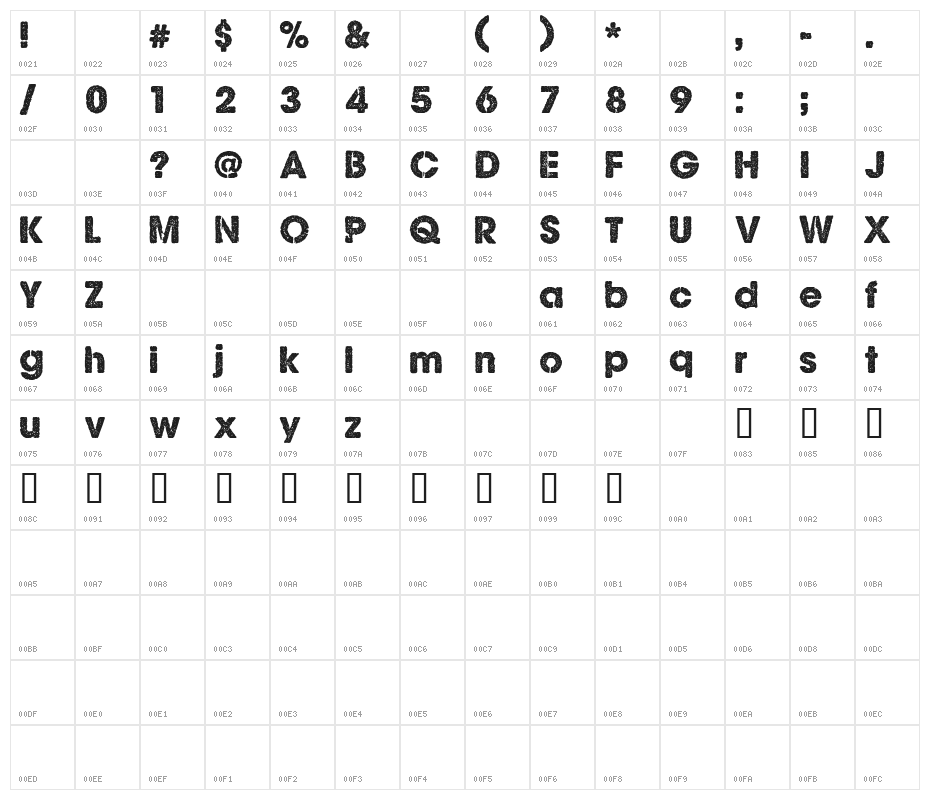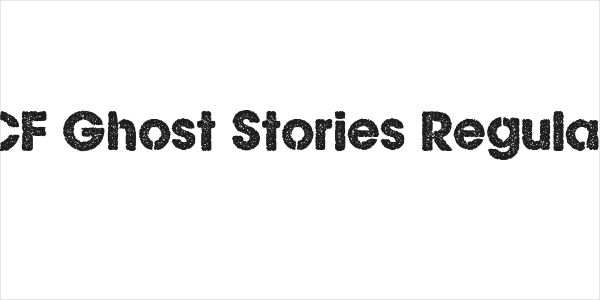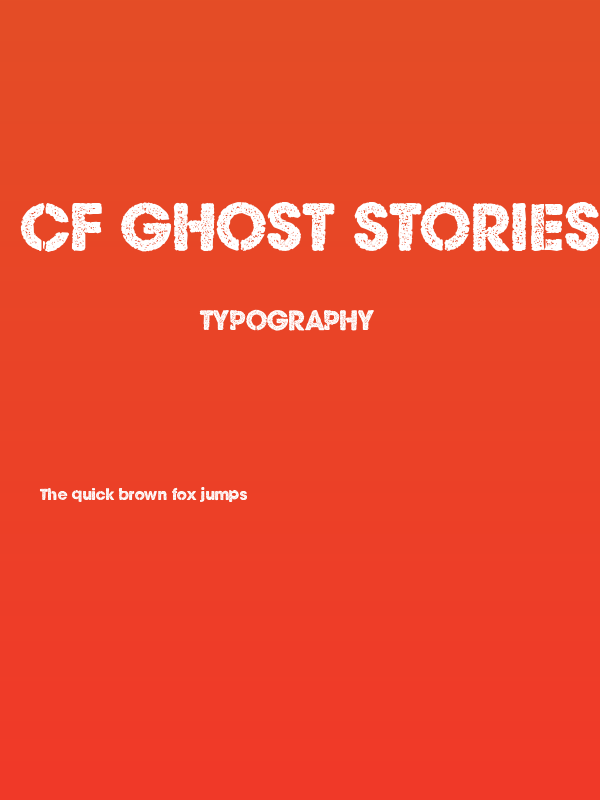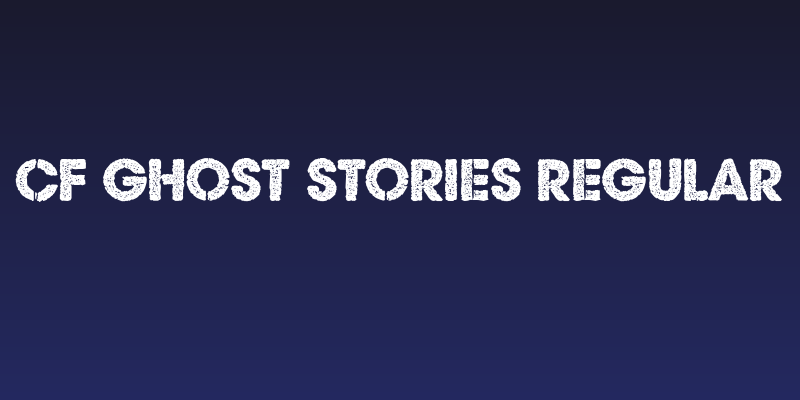
CF Ghost Stories Regular Font
CF Ghost Stories Regular Description
This font features a bold, textured style that gives the impression of being worn or distressed, reminiscent of ghostly or eerie themes. Each character is filled with a speckled pattern, creating a unique visual effect that stands out. The uppercase and lowercase letters maintain a consistent weight, providing a cohesive look across the alphabet. The numbers and special characters follow the same design, ensuring uniformity. This font is ideal for projects that require a spooky or mysterious aesthetic, such as Halloween-themed designs or horror movie posters.
| Proposed Projects | Ideal for Halloween-themed designs, horror movie posters, spooky invitations, and eerie branding projects. |